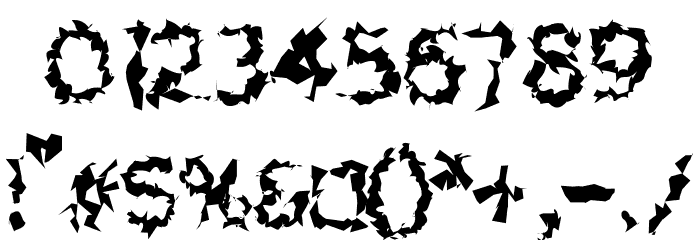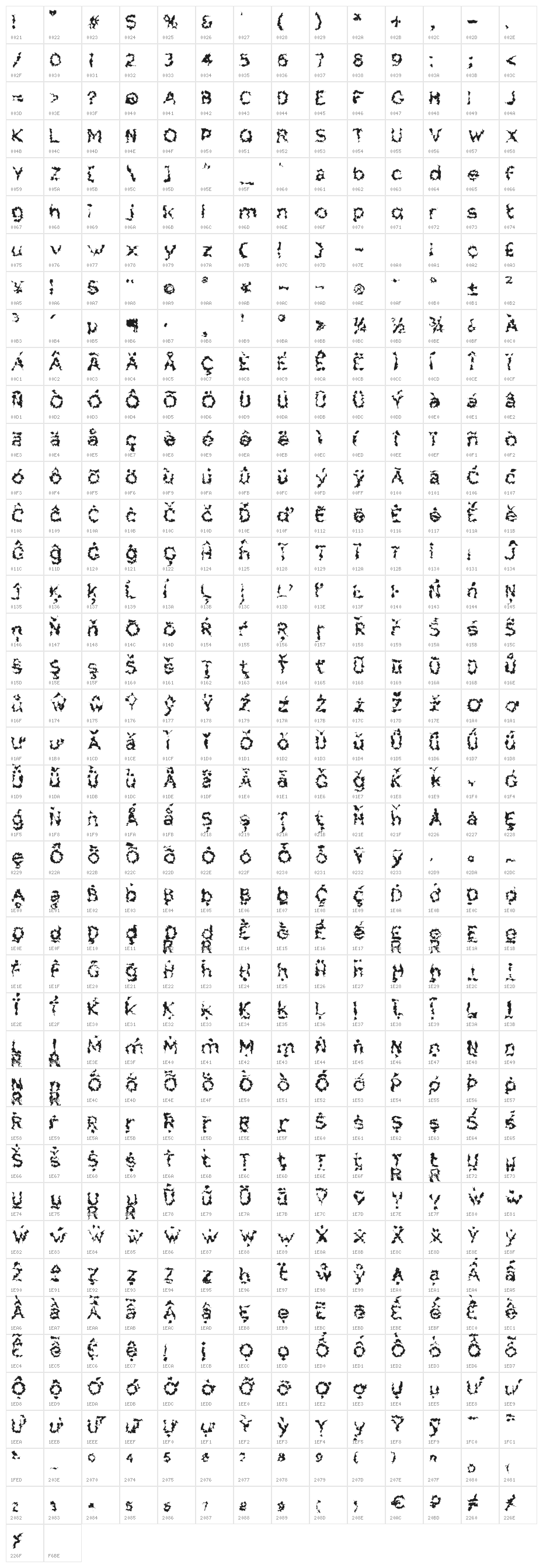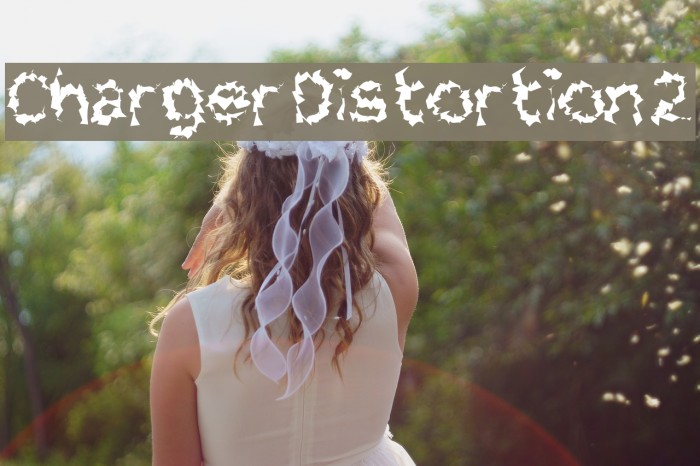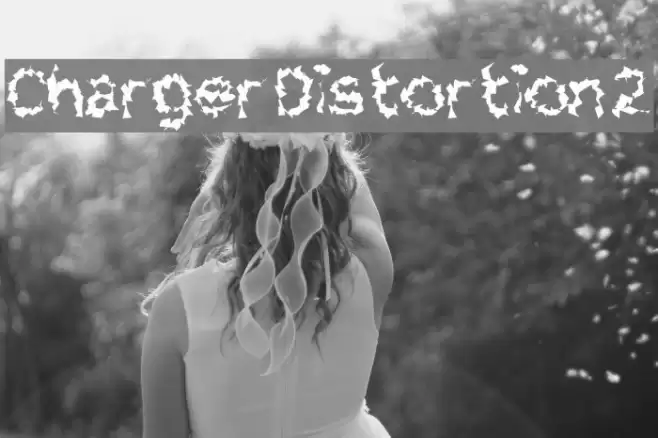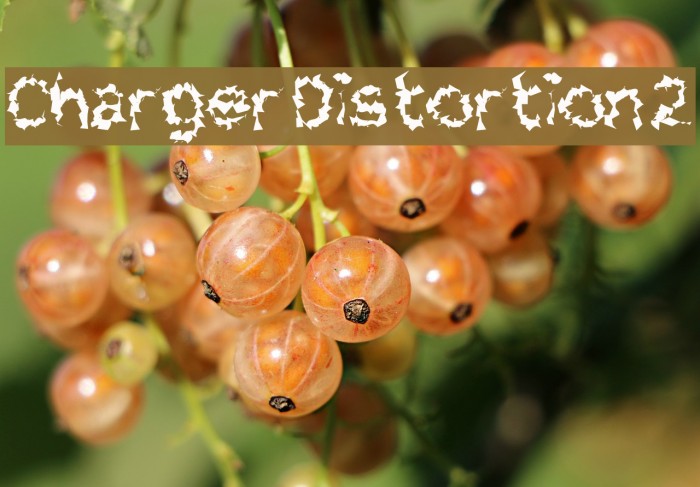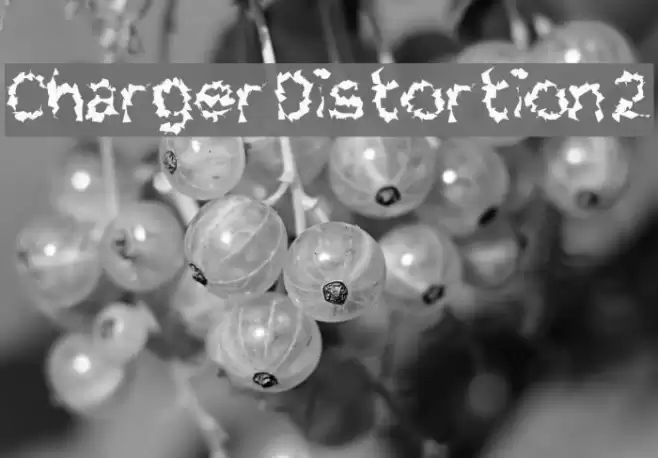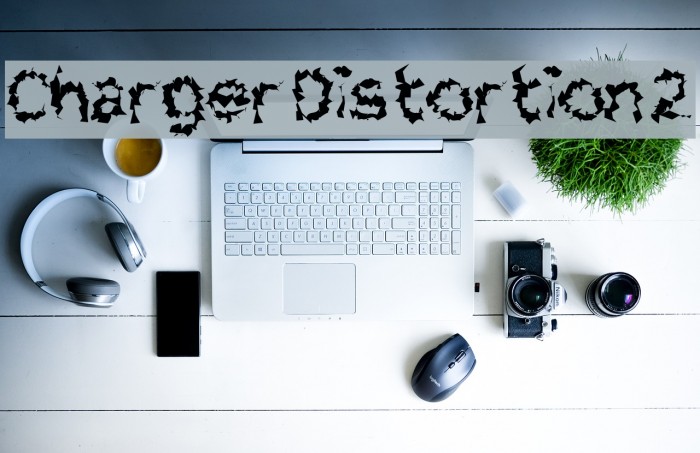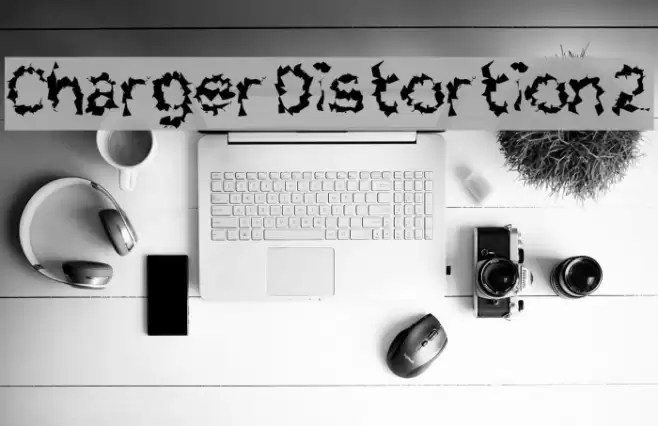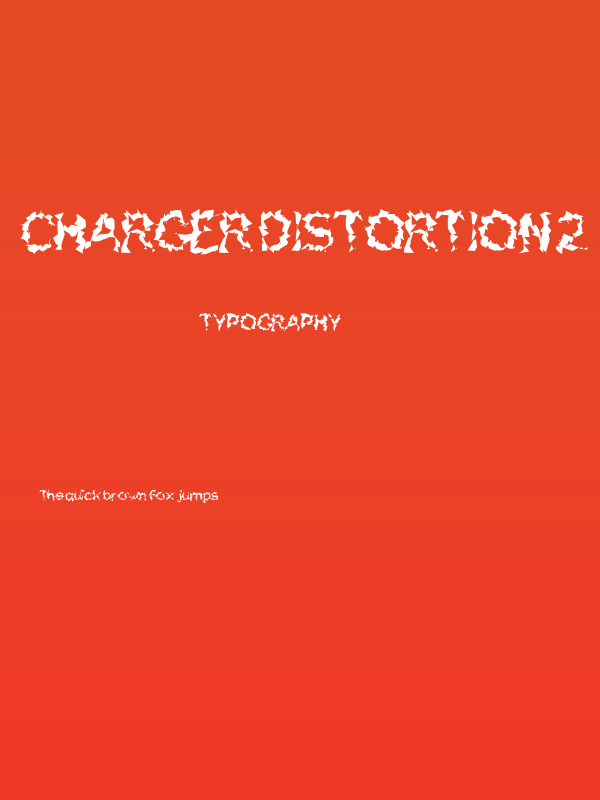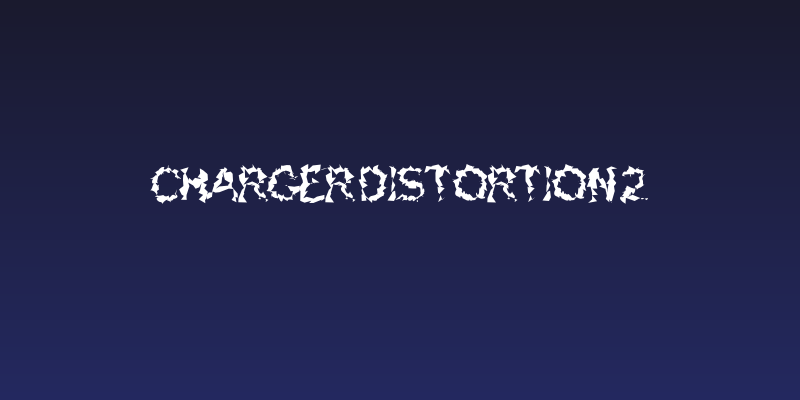
Charger Distortion 2 Font
Charger Distortion 2 Description
This font features a highly distorted and jagged appearance, reminiscent of shattered glass or torn paper. Each character is uniquely fragmented, creating a chaotic and edgy aesthetic. The irregular shapes and sharp angles give it a dynamic and aggressive feel, making it stand out in any design. The font maintains legibility despite its unconventional style, with each letterform clearly distinguishable. This typeface is ideal for projects that require a bold and rebellious statement, capturing attention with its raw and unrefined look.
| Overall Style | Modern, Aggressive |
| Proposed Projects | Album covers, horror movie posters, extreme sports branding, edgy fashion labels. |